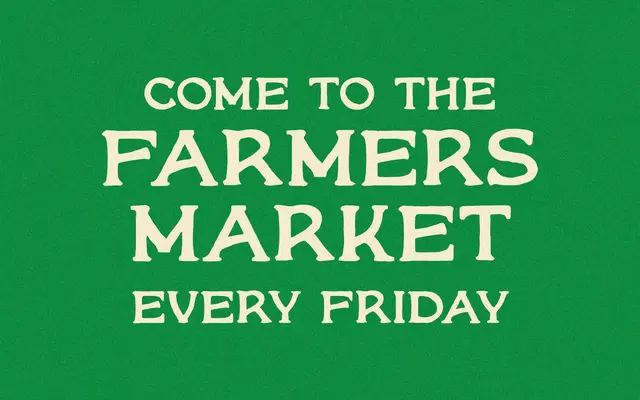
Roony
A single-weight hand-drawn display face with a loose, organic quality suited to casual branding and packaging.
Roony is a hand-lettered display typeface with an unpretentious, sketched character that reviewers have used for category headers, branding proposals and vintage-leaning work. It ships as a single Regular weight with basic Latin coverage and a limited set of accented characters across 150 glyphs. The lack of weights or italics keeps it a narrow-use tool, but within that scope it does what it sets out to do.
Described explicitly as hand-drawn lettering with a casual, organic character; its single-weight, informal construction places it firmly in the display category rather than any structured typographic tradition.